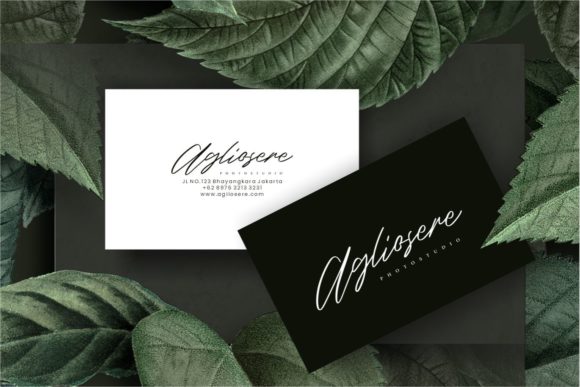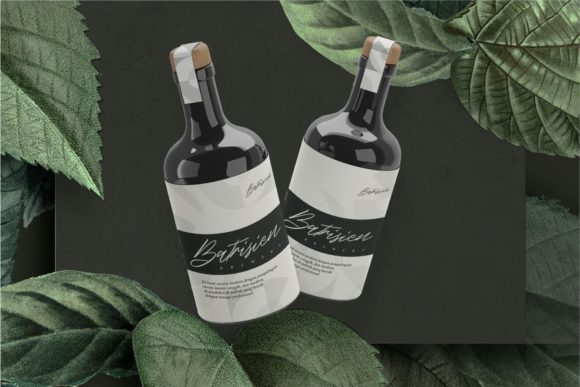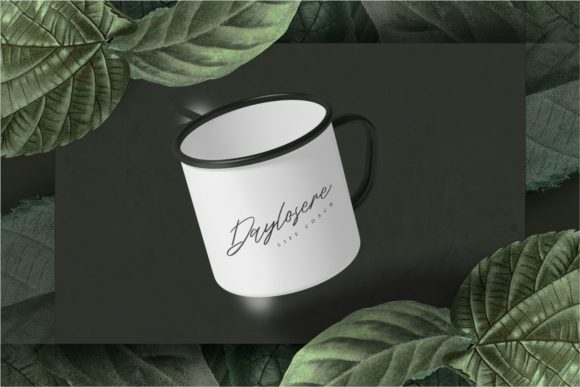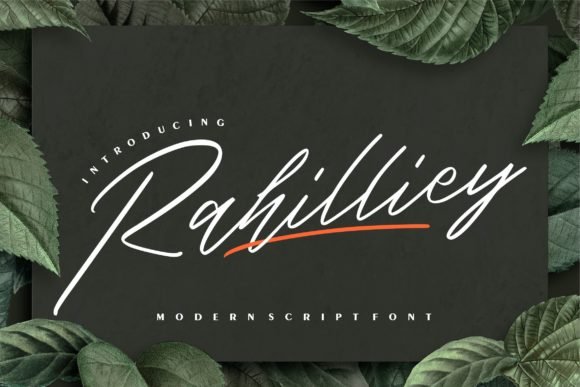
Introduction to Rahilliey Font
Rahilliey is a thin lettered and classy looking handwritten font.
It has a refined, elegant and modern look that can be used for logos, branding, invitations, stationery, wedding designs, social media posts, and much more .